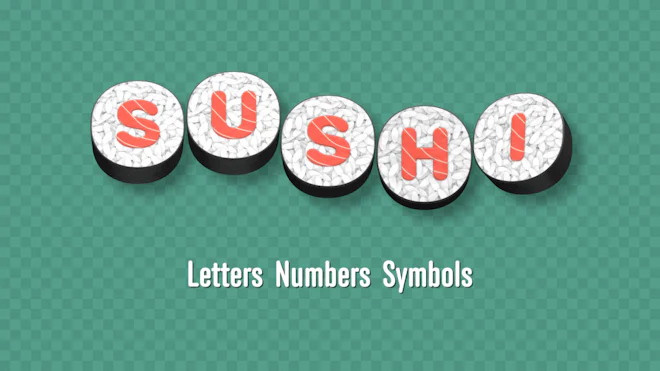
This stock motion graphics video pack includes 48 clips of bouncing sushi letters, numbers and symbols on a transparent alpha channel in a seamless loop.